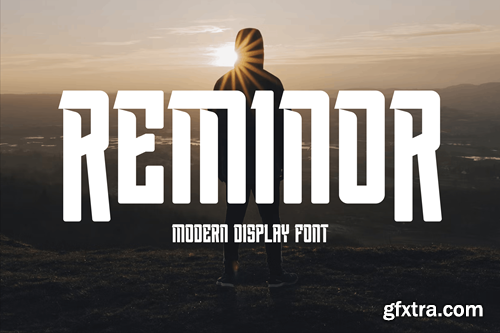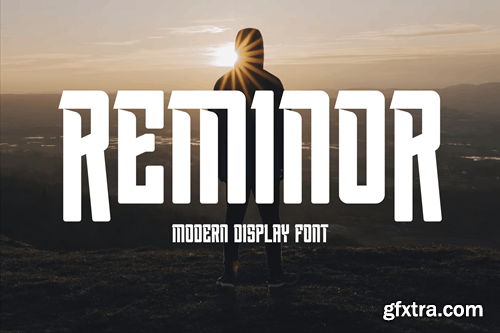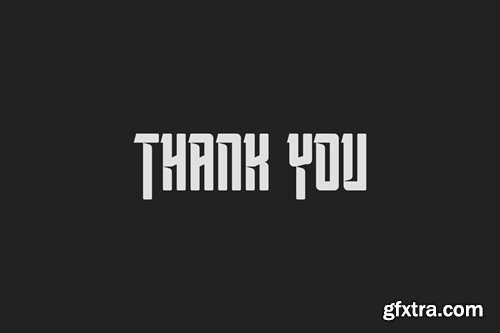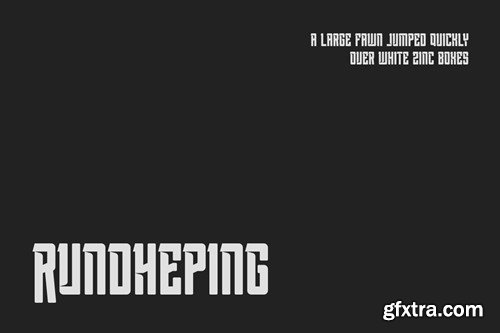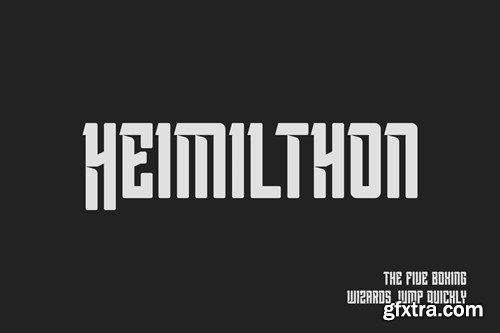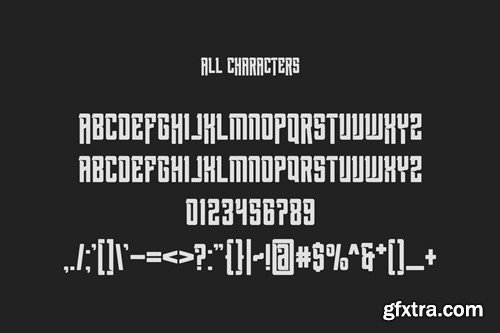
瑞纳字体X98MRQY
Reminor Font
Introducing our new product Reminor Font - Modern Font Reminor Font- Modern Font is a bold and authentic display font. The font is suitable for any branding project like logo, t-shirt printing, esport, and many more. outstanding in a wide range of contexts. availlable